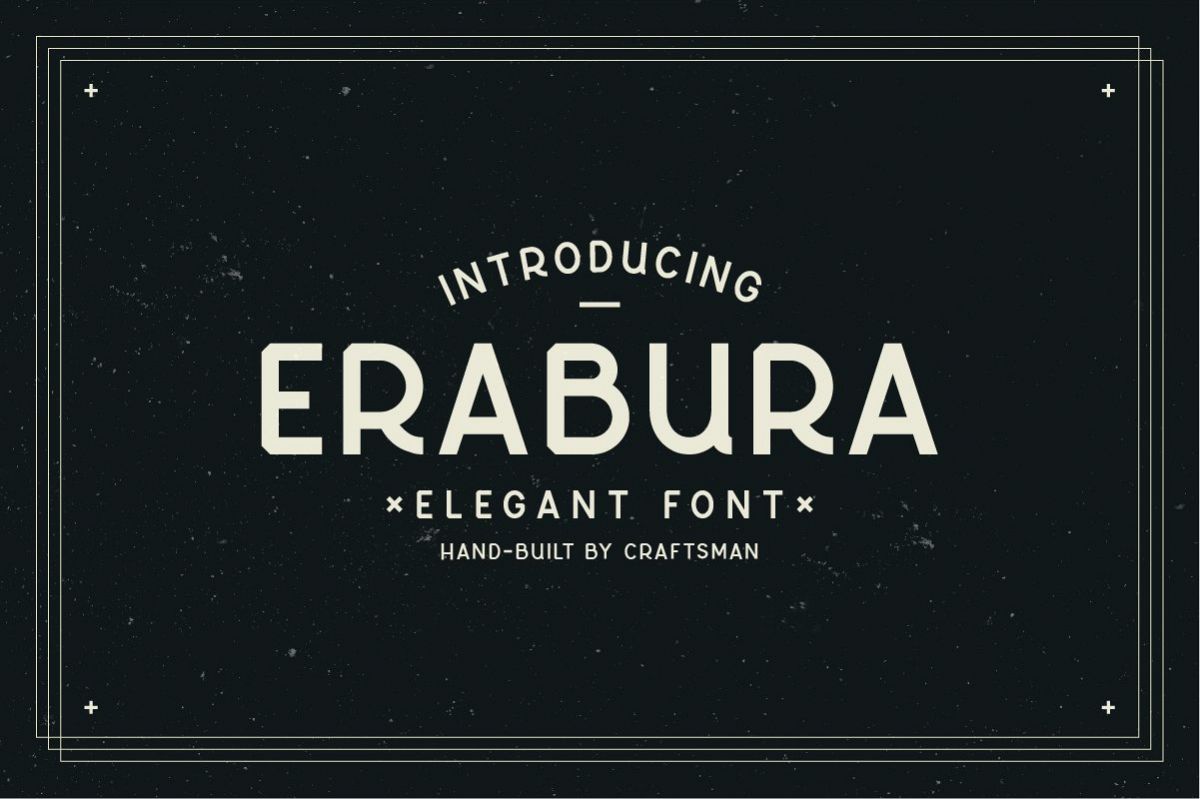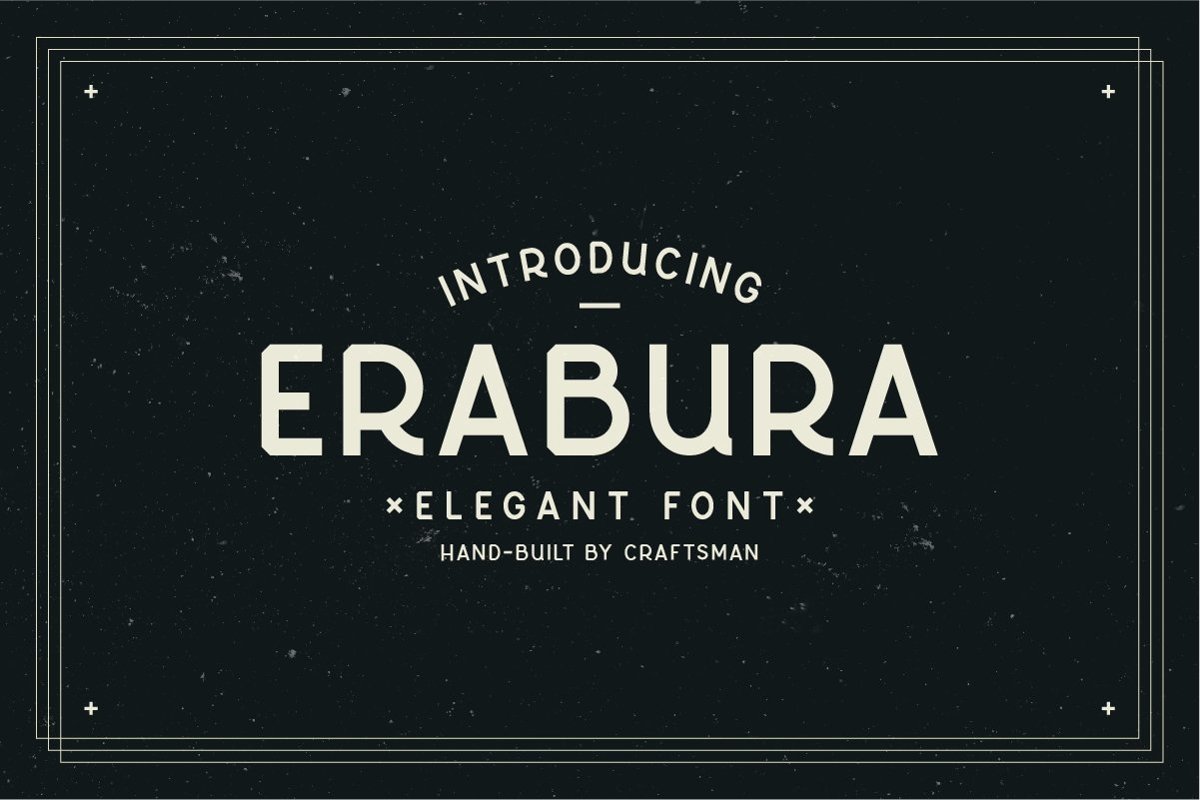
Erabura Elegant Font
Tacikworks presents the new Elegant Font hand-build by craftsman. These clean and elegant font will be good to use in your design. The font perfect for create brand logo, badges, clothing design, and much more.